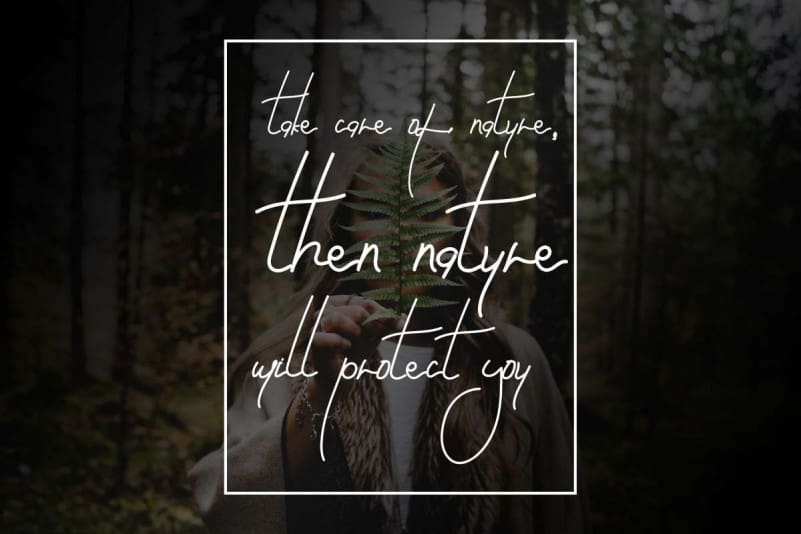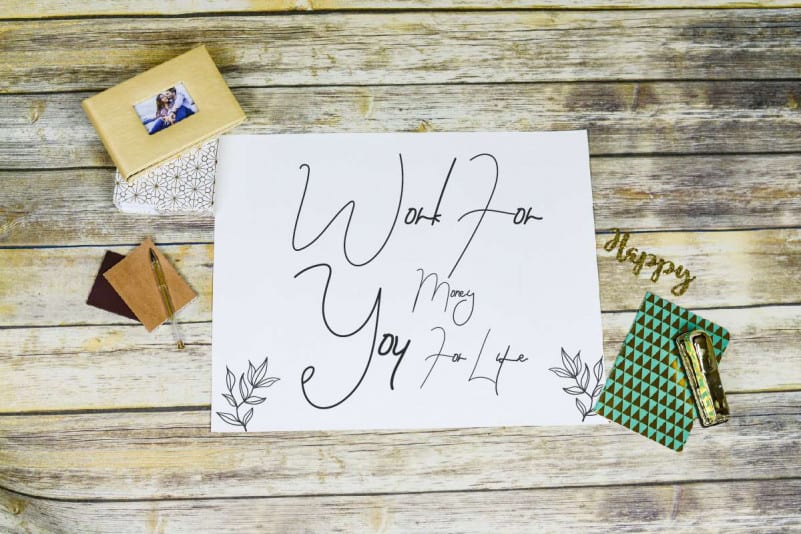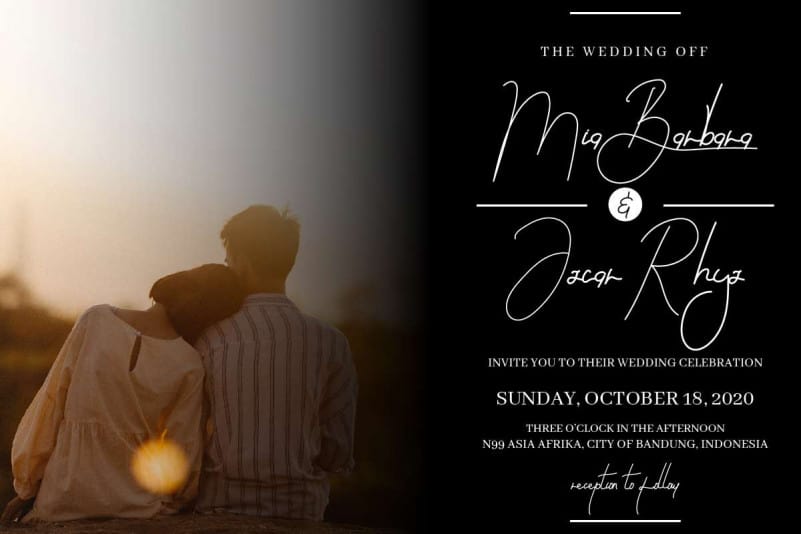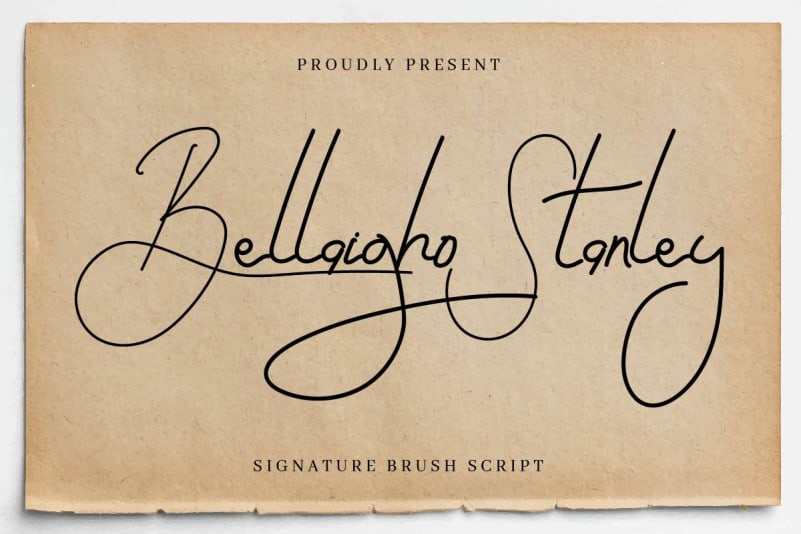
Bellaigho Stanley Script Font
Bellaigho Stanley Script Font is an exclusive signature handwriting script typeface with natural pen style. This font has a stunning characters set, perfectly managed with well spaced and kerning. The theme style of this font will elegant, luxury, glamour, gold, vintage, stylish, feminine, minimal, sophisticated and classic brush calligraphic style.
Bellaigho Stanley Script Font will be great for any projects including : branding, logo, stationery, business card, signage, flyer, brochure etc. Almost all industries will be match for this typeface: wedding, events, real estate, architect, law firm, florist, gardening, makeup artist, travel, hotel, musician etc